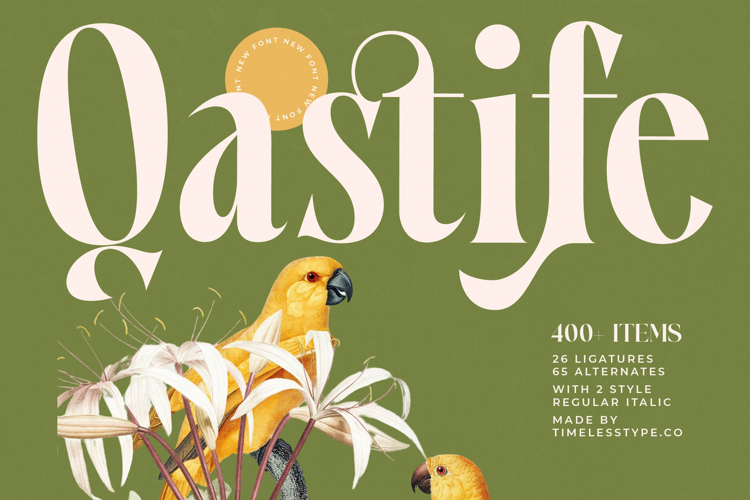
Qastife - Modern Serif Font
Elevate your design projects with the breathtaking elegance of Font Qastife - Modern Serif Font Serif Display. This exquisite typeface masterfully blends traditional serif structures with a distinct modern flair, creating a truly captivating aesthetic. Its high-contrast strokes and refined curves command attention, making it the perfect choice for designs that demand both sophistication and a powerful visual presence. Font Qastife - Modern Serif Font Serif Display is crafted to leave an indelible mark.
Discover unparalleled versatility for your most discerning projects. Font Qastife - Modern Serif Font Serif Display is ideally suited for luxury branding, exclusive product packaging, high-fashion editorials, and impactful headlines. It's perfect for creating sophisticated logos, magazine layouts, and elegant invitations, instantly injecting grandeur and prestige. This font transforms ordinary text into an extraordinary visual experience.